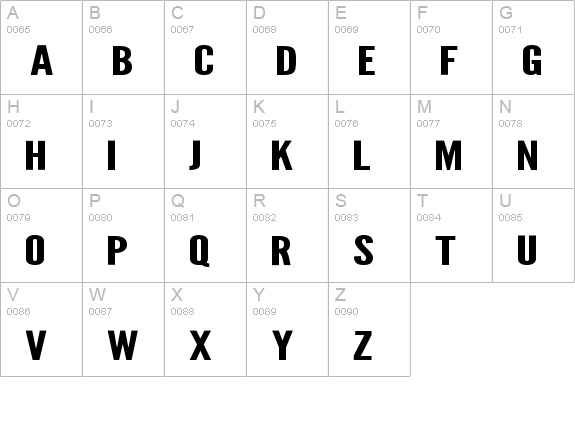
Warsaw Gothic SuperExtended Font Details
Introducing Warsaw Gothic SuperExtended, a captivating and edgy font that combines the essence of Gothic aesthetics with a modern twist. This font is the perfect choice for those seeking to add a touch of darkness and intrigue to their designs. With its elongated and bold letterforms, Warsaw Gothic SuperExtended exudes a sense of power and authority. Each character is meticulously crafted, featuring sharp edges and dramatic curves that create a visually striking impact. This font is designed to leave a lasting impression, making it ideal for headlines, logos, posters, and other creative projects where boldness is key. Despite its bold appearance, Warsaw Gothic SuperExtended maintains a high level of legibility, ensuring that your message is effectively communicated. Whether used in large-scale designs or in smaller text blocks, this font remains clear and easy to read, without sacrificing its unique style. One of the most remarkable aspects of Warsaw Gothic SuperExtended is that it is available for free. That's right – you can download this exceptional font without spending a dime. Head over to FontsMarket.com and get your hands on this stunning typeface, ready to elevate your designs to new heights. With Warsaw Gothic SuperExtended, you have the freedom to unleash your creativity without any limitations. Explore its endless possibilities and discover how it can transform your projects into works of art. So go ahead, download this font today and let your imagination run wild.